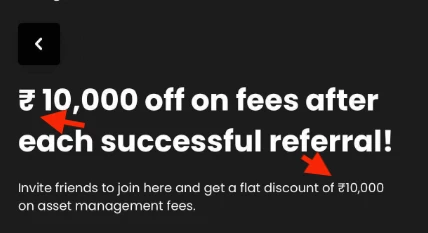
Poppins font is not respecting the original Indian Ruppee symbol design
Currently, we are using the Poppins font in one of our mobile application and it works really well. But recenly we are facing an issue with the Indian Rupee symbol.
The Indian Rupee Symbol is ₹ but the poppins font is converting its bottom part to semi circular curve, which is not right as this is a specific symbol.
Can you pleas help us to make sure that the original Indian Ruppee symbol looks as is with Poppins font?
Adding a screenshot of the Ruppee symbol in poppins font from our mobile app.
It appears the person or persons who designed the Poppins typeface made the Ruppee symbol look like that by choice. The Font Squirrel web site will let you view all the glyphs in various styles of the Poppins typeface.
The Ruppee symbol looks just like the sample image you uploaded.
The Poppins typeface was developed by the Indian Type Foundry.
Yes, this is happening in other devices and applications as well, I also tried your Font test View and it was happening there as well.